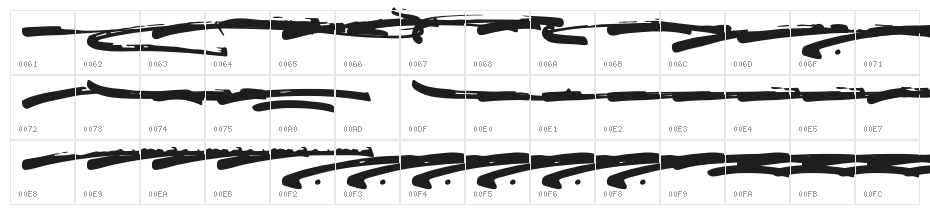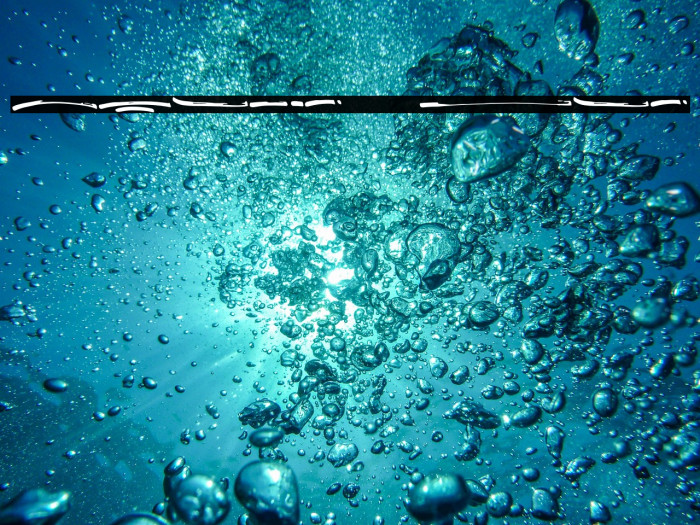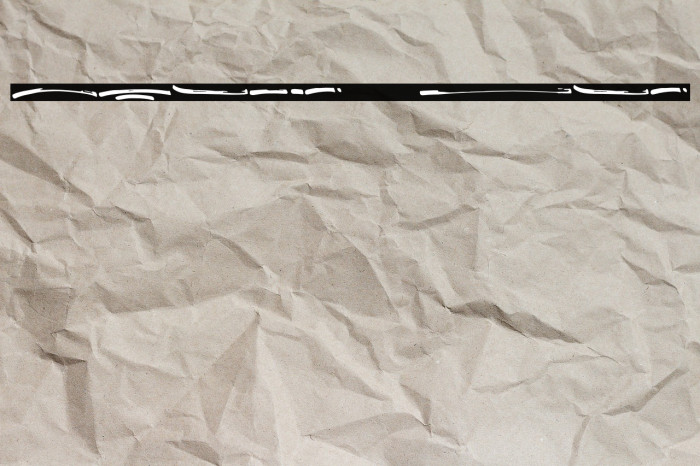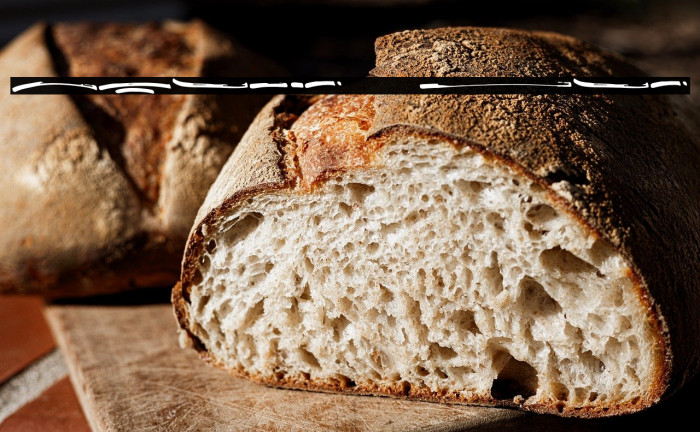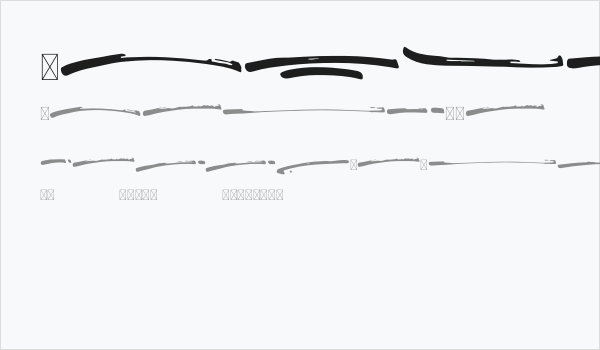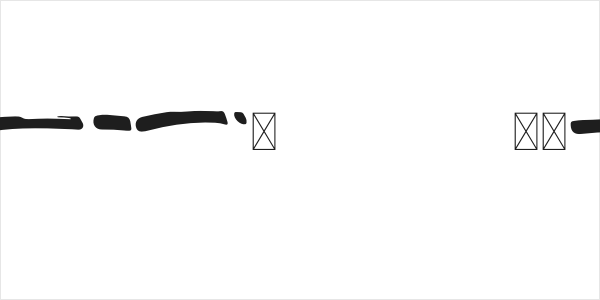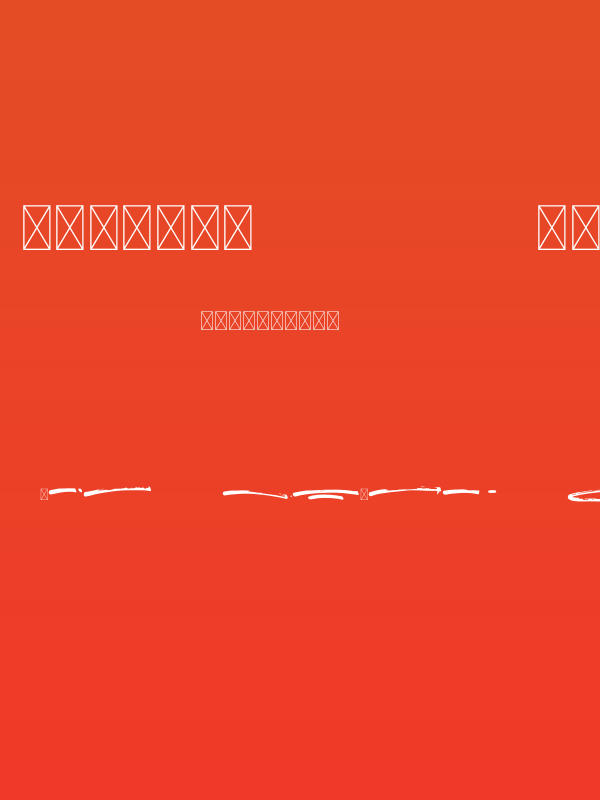
Brusthy Swash Font
Brusthy Swash Description
This font features an elegant and flowing script style with decorative swashes that add a touch of sophistication and flair. The characters are interconnected with smooth, sweeping lines, creating a sense of movement and grace. The uppercase letters are particularly ornate, with extended strokes that enhance their visual appeal. The lowercase letters maintain a consistent style, complementing the uppercase with their own subtle flourishes. The numbers and special characters are designed to match the overall aesthetic, ensuring a cohesive look across all text. This font is ideal for projects that require a personal, artistic touch.
Use CaseLogos, Invitations, Decorative text
Proposed ProjectsIdeal for wedding invitations, greeting cards, branding, and logo design.